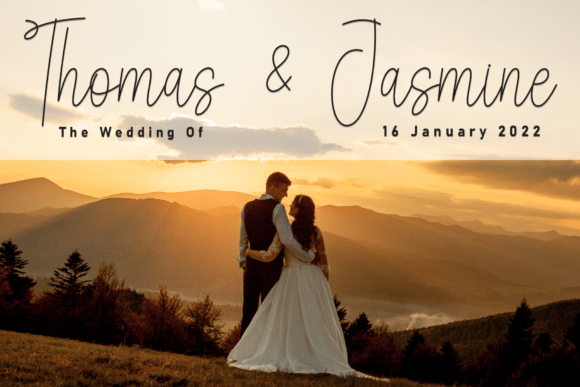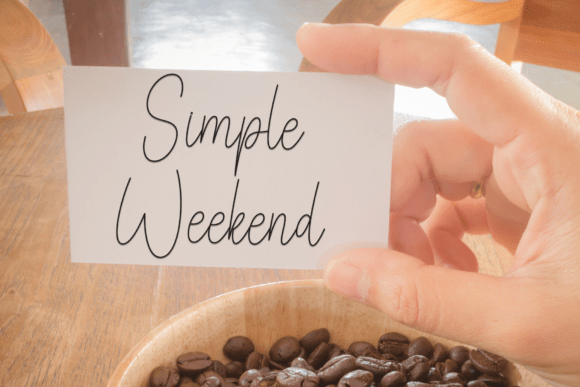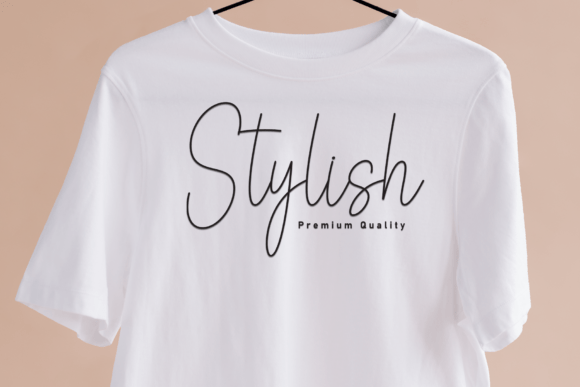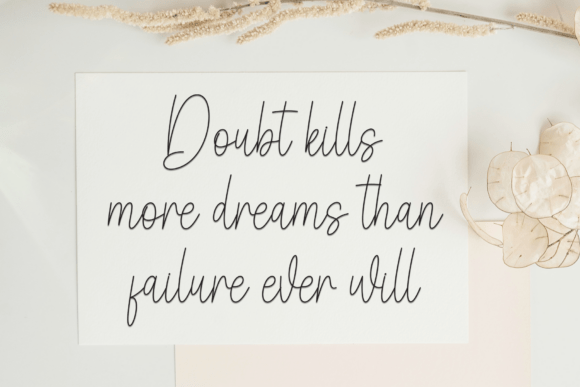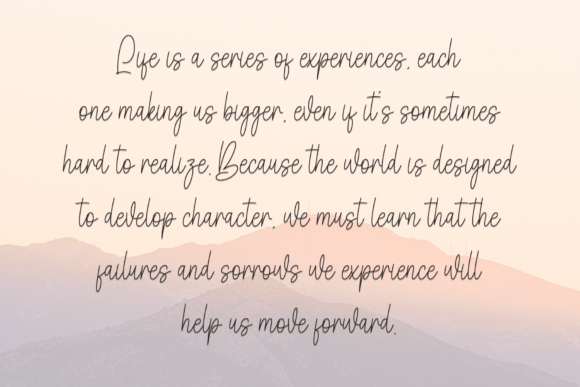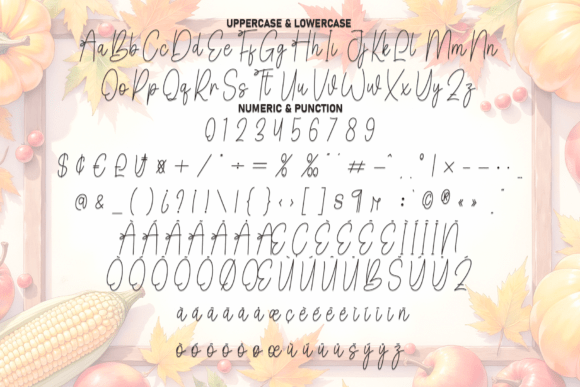
Introduction to Family Thanksgiving Font
Celebrate the season of gratitude with Family Thanksgiving, a charming monoline script that captures a “warm-and-welcoming” soul.
This font features airy, hand-drawn letterforms uniquely characterized by rhythmic, sprawling loops and a thin structural weight that bridges the gap between heartfelt holiday notes and modern seasonal branding With its friendly personality and organic flow, Family Thanksgiving is the premier choice for independent farmhouse identities, boutique kitchenware logos, artisanal autumn packaging, and high-impact “cozy-and-connected” social media headers.
Key Features of Family Thanksgiving Font
Why Choose Family Thanksgiving Font?